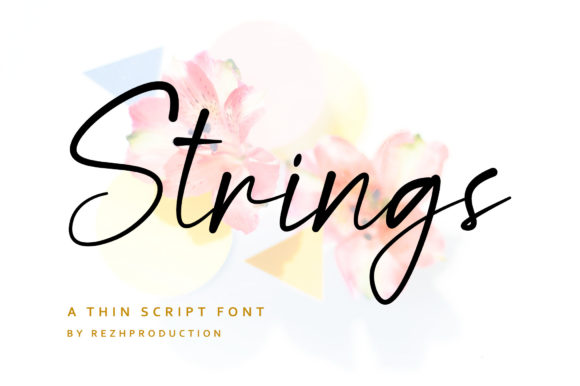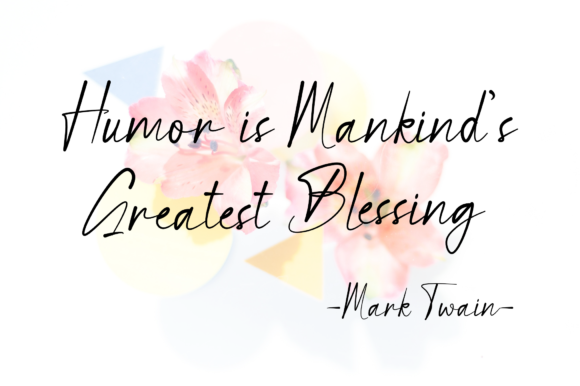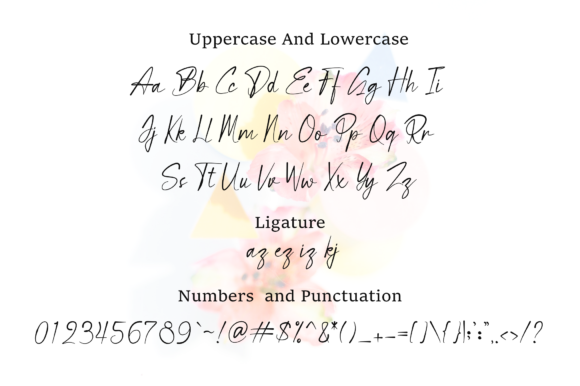
Strings is a lovely and timeless handwritten font. It is the best choice for creating eye catching logos, branding and quotes. Every letter has a unique and beautiful touch, which will make your design come alive!